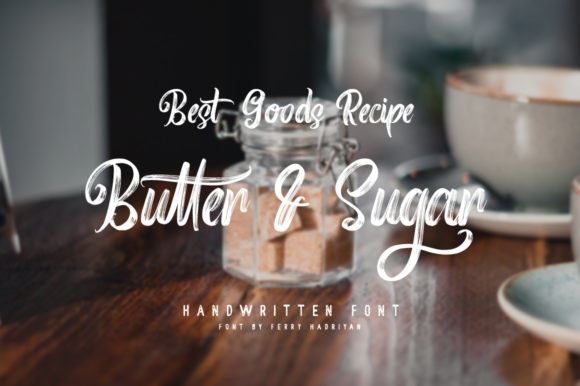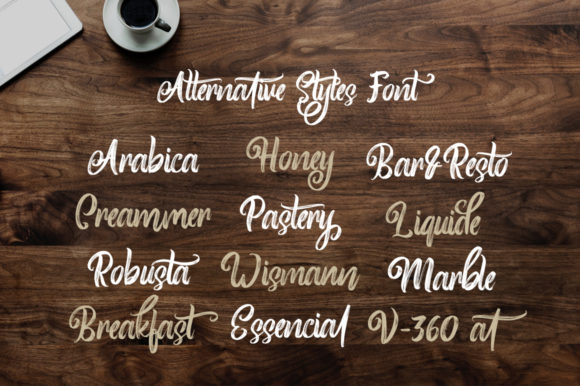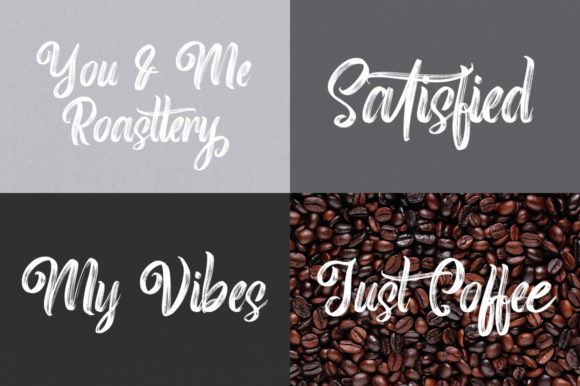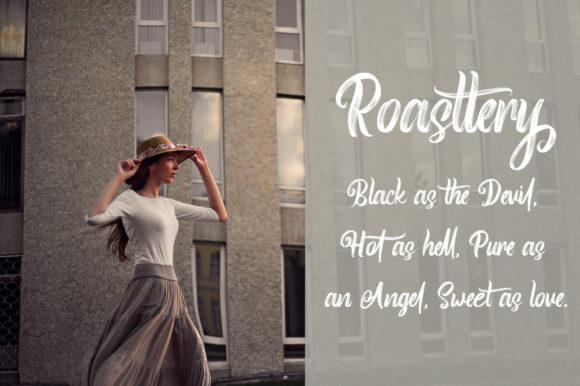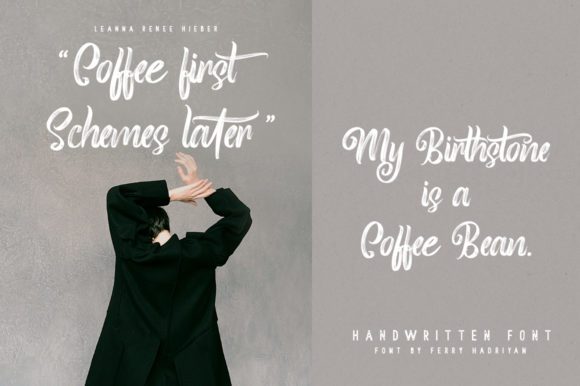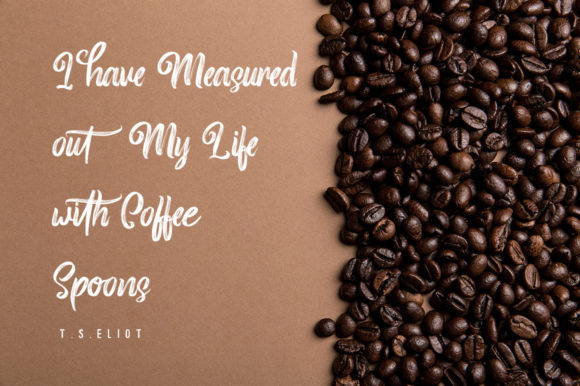
Introduction to Roasttery Font
Have you ever been working on a creative project, pouring your heart and soul into it, only to realize that the perfect font is missing? This is a common struggle many designers face, but today we’re excited to introduce you to a game-changer – the Roasttery Font. This sweet and fun script is about to elevate your designs to the next level.
Imagine a font that not only adds a touch of romance to your work but also provides a smooth, high-quality aesthetic that’s sure to impress. The Roasttery Font is a design resource that’s perfect for any creative project, whether you’re working on a wedding invitation, a social media campaign, or a blog post. With its unique look and transparent background, you’ll be able to customize it to fit your needs.
Key Features of Roasttery Font
- Unique, handcrafted design with a rustic feel, ideal for creative projects and design resources.
- Perfect for use in various design projects, including logos, branding materials, and packaging design.
Honest Review: Roasttery Font
As a designer, I’m always on the lookout for high-quality design resources to elevate my creative projects. The Roasttery Font caught my eye with its unique style and free download option.
What works well: ✨ The font’s versatility is impressive, making it suitable for a wide range of design projects, from logos to brochures. The transparent background feature is also a plus, allowing for seamless integration with different design elements. The high-quality design ensures that the font remains crisp and clear, even at larger sizes.
- High-quality design ensures readability and visual appeal
Limitations: ⚠️ While the Roasttery Font is an excellent addition to any design library, it may not be the best choice for projects requiring a more traditional or formal font style. Additionally, the font’s unique characteristics may not be suitable for all design contexts.
Overall, I’m impressed with the Roasttery Font’s potential and would recommend it to designers looking for a creative and versatile font for their next project.
The Roasttery Font is suitable for a wide range of creative projects, including graphic design, digital art, and typography-based artworks. Its versatility and unique design make it an excellent choice for designers, artists, and writers seeking a high-quality font for their work.